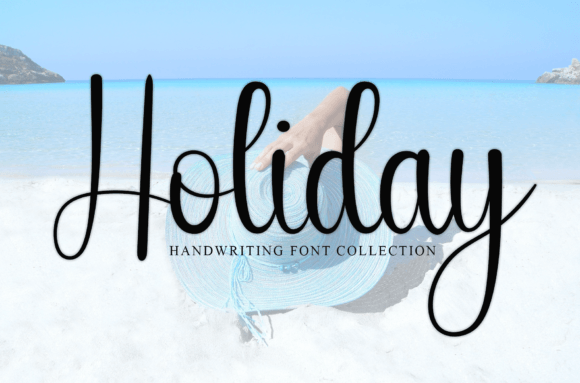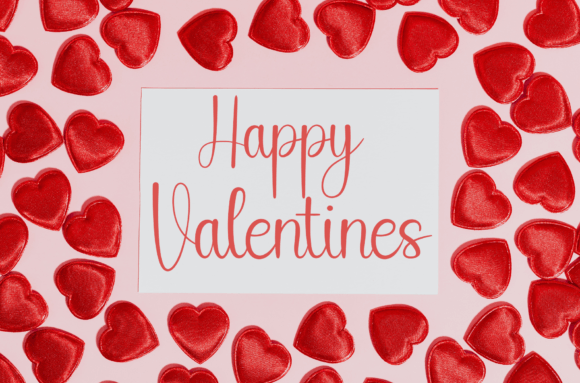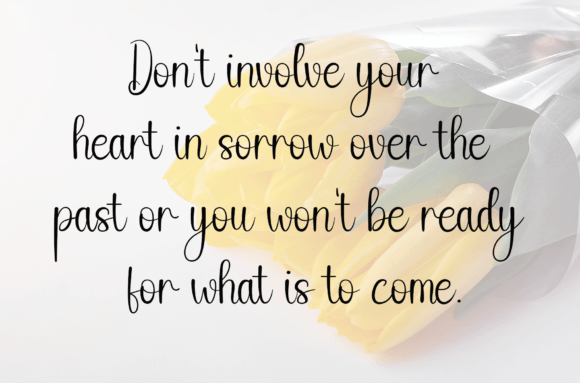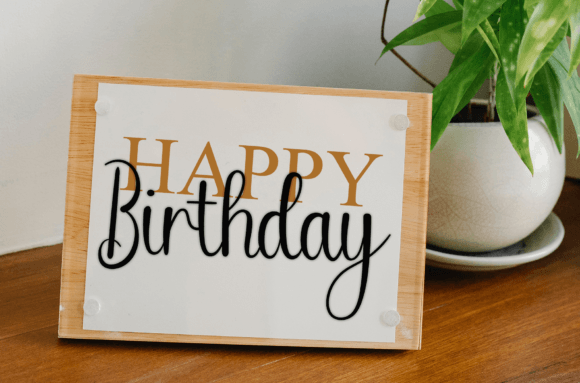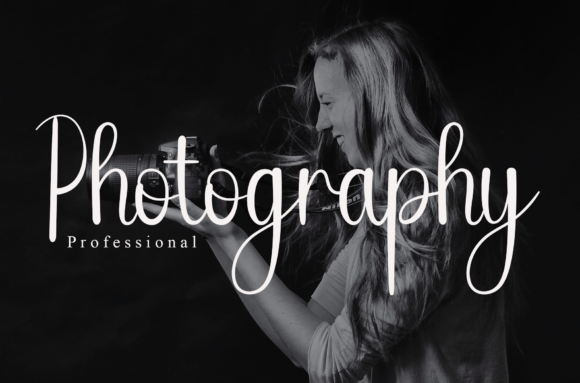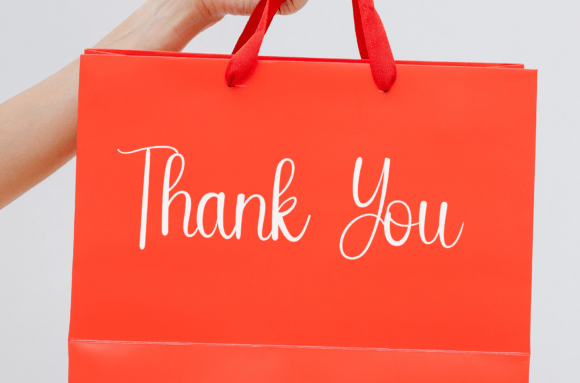
Find Your Holiday Cheer in the Perfect Font
As a designer, there’s nothing quite like the thrill of bringing a new project to life. The blank page stares back at you, a canvas waiting for your creative touch. You begin to brainstorm, ideas flowing like a festive holiday parade. And then, it hits you – the perfect font can make all the difference. That’s when you stumble upon Holiday Font, a beautiful handwritten font that exudes elegance and sophistication.
Holiday Font is the perfect addition to any project, whether it’s a holiday card, a wedding invitation, or a social media post. Its distinct and timeless style is sure to captivate your audience and leave a lasting impression. As a designer, you know that the right font can elevate your work from good to great, and Holiday Font is no exception.
Holiday Font Key Features
- Character Set: The font includes a comprehensive character set, covering Latin, Cyrillic, and Greek alphabets, as well as various punctuation marks and symbols.
- Unique Characteristics: Holiday Font features a festive and playful design, with intricate details and ornaments that evoke a sense of holiday cheer.
Holiday Font Review
As a designer, I was excited to dive into the “Holiday Font” and see if it could bring some festive cheer to my projects. ✨ Here are my thoughts:
- Unique Character**: Holiday Font has a distinct personality that’s perfect for winter-themed projects, especially those related to Christmas or New Year’s Eve. ✨
- Wide Character Set**: The font includes a wide range of characters, from uppercase and lowercase letters to numbers and punctuation marks. ✨
- Good for Headlines**: Holiday Font’s bold and playful nature makes it an excellent choice for headlines and titles. ✨
- Limited Versatility**: While Holiday Font is great for winter-themed projects, it might not be the best choice for other types of projects, like business cards or resumes. ⚠️
- Lack of Customization Options**: The font doesn’t offer many customization options, which might limit its use in certain design scenarios. ⚠️
Overall, I think Holiday Font is a great choice for designers looking to add some festive flair to their projects. While it has some limitations, its unique character and wide character set make it a valuable addition to any design arsenal.
Practical Application Guide for Holiday Font
Getting the Most Out of Holiday Font
Use the Holiday Font to add a festive touch to your designs, especially during the holiday season. You can use it to create invitations, greeting cards, and other holiday-themed materials. Experiment with different font styles and sizes to add visual interest to your designs.
The Holiday Font is perfect for creating:
- Christmas and New Year’s Eve invitations
- Holiday greeting cards and gift tags
- Seasonal social media posts and graphics
- Winter-themed menus and brochures
Alternatives to Holiday Font
Playfair Display is a high-end serif font ideal for luxurious and elegant designs. It’s perfect for use in invitations, wedding cards, or high-end branding. Compared to Holiday Font, Playfair Display has a more refined and sophisticated look, making it suitable for more formal and exclusive designs.
Cream Soda is a script font with a playful and vintage feel. It’s great for use in designs that require a touch of whimsy and nostalgia. Compared to Holiday Font, Cream Soda has a more casual and relaxed look, making it suitable for designs that require a friendly and approachable tone.